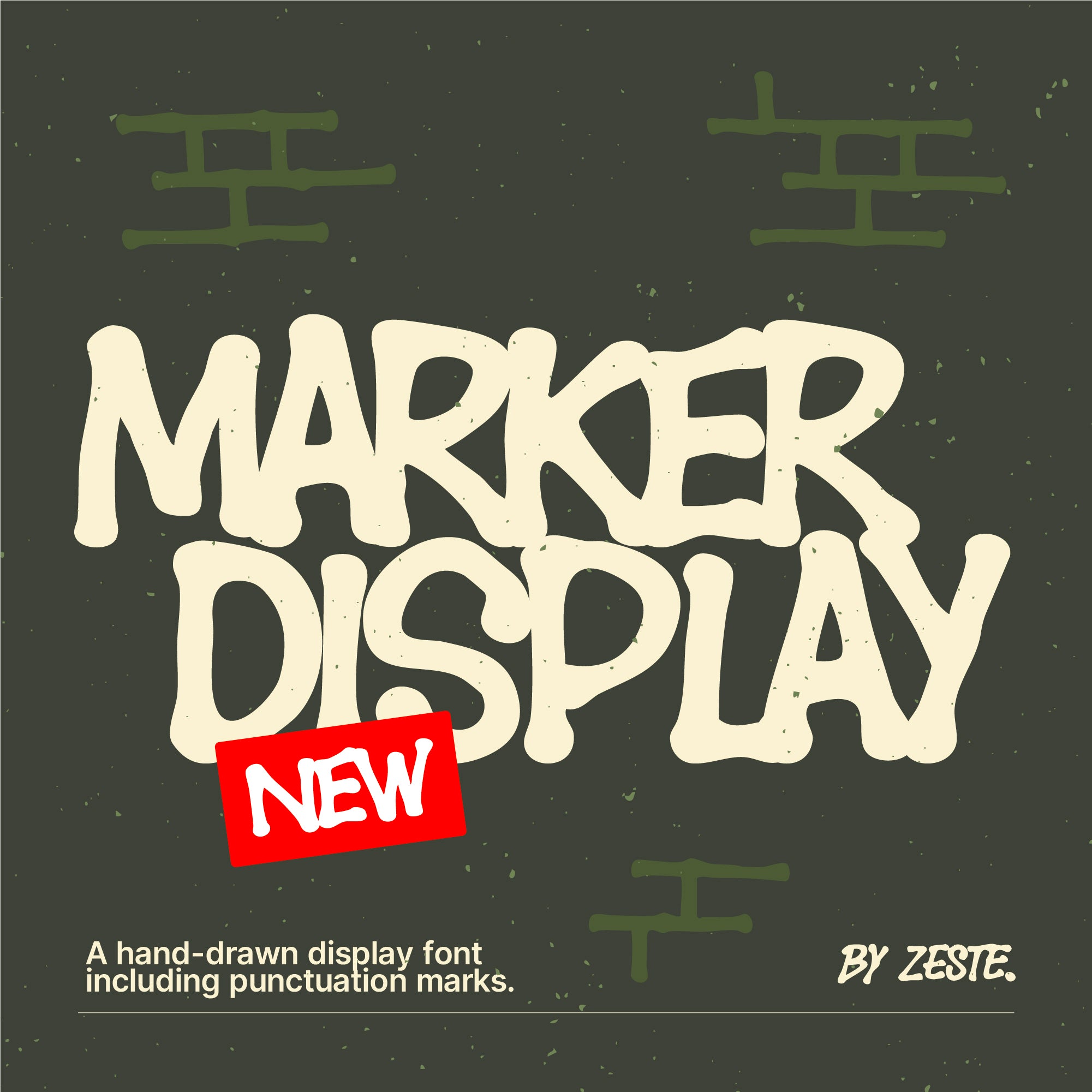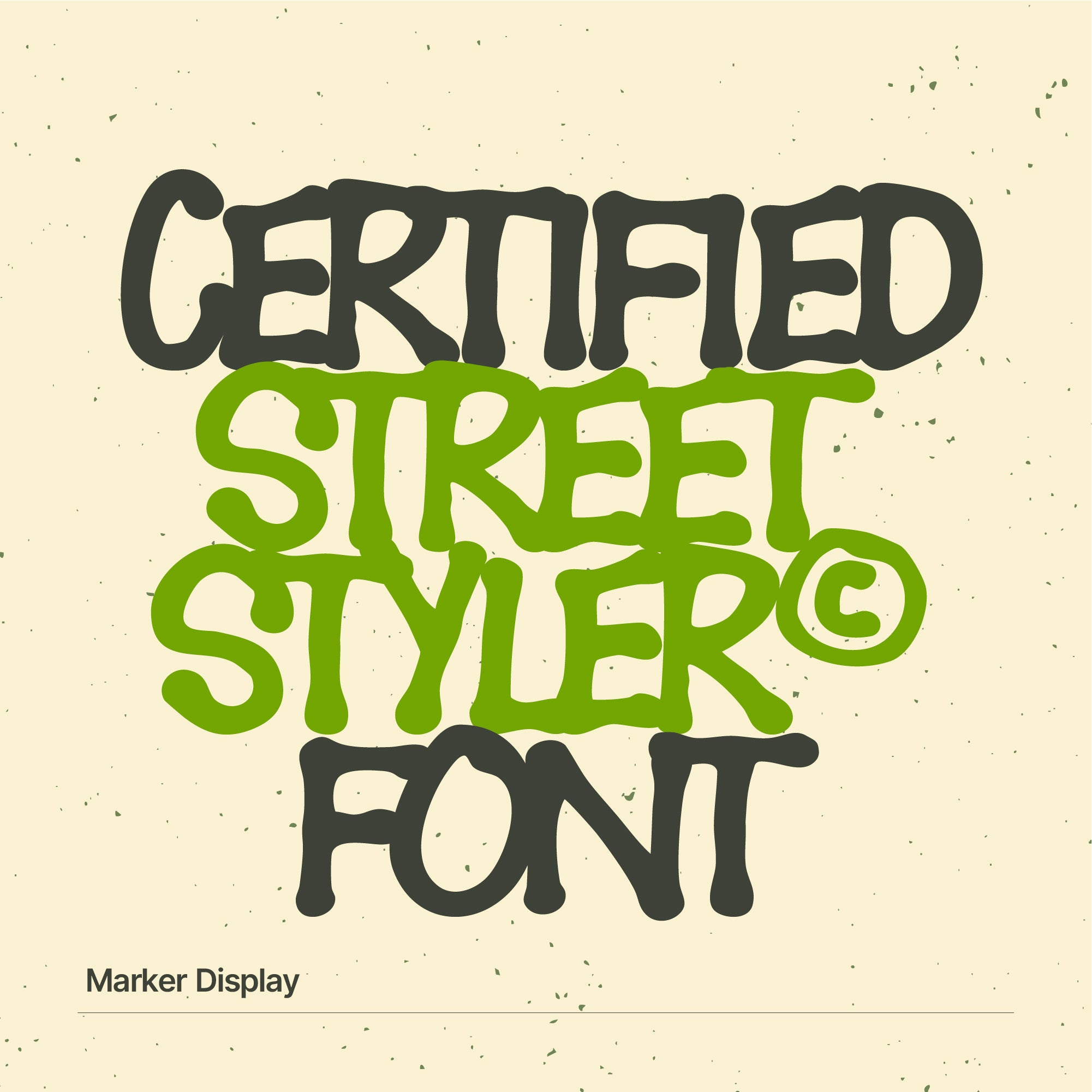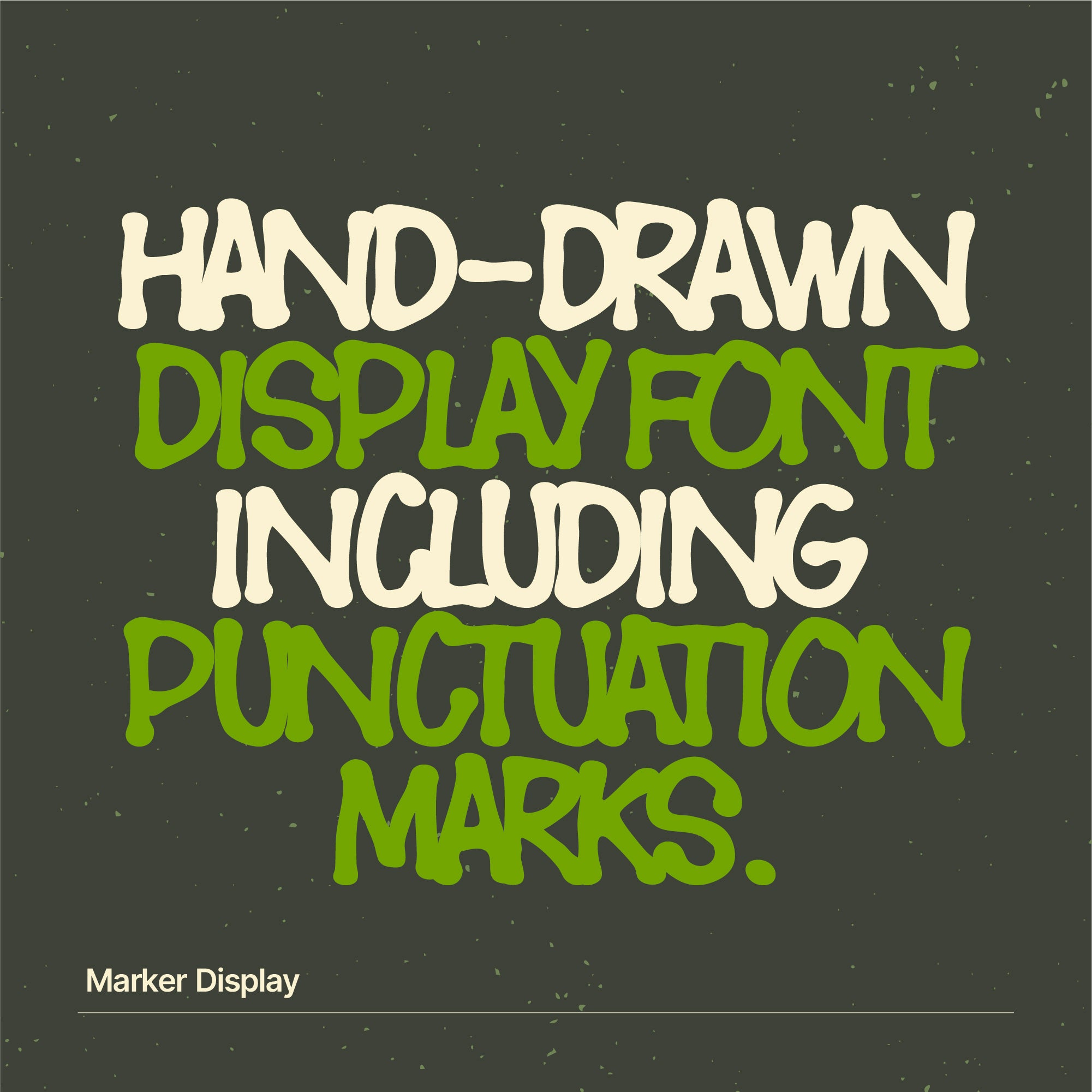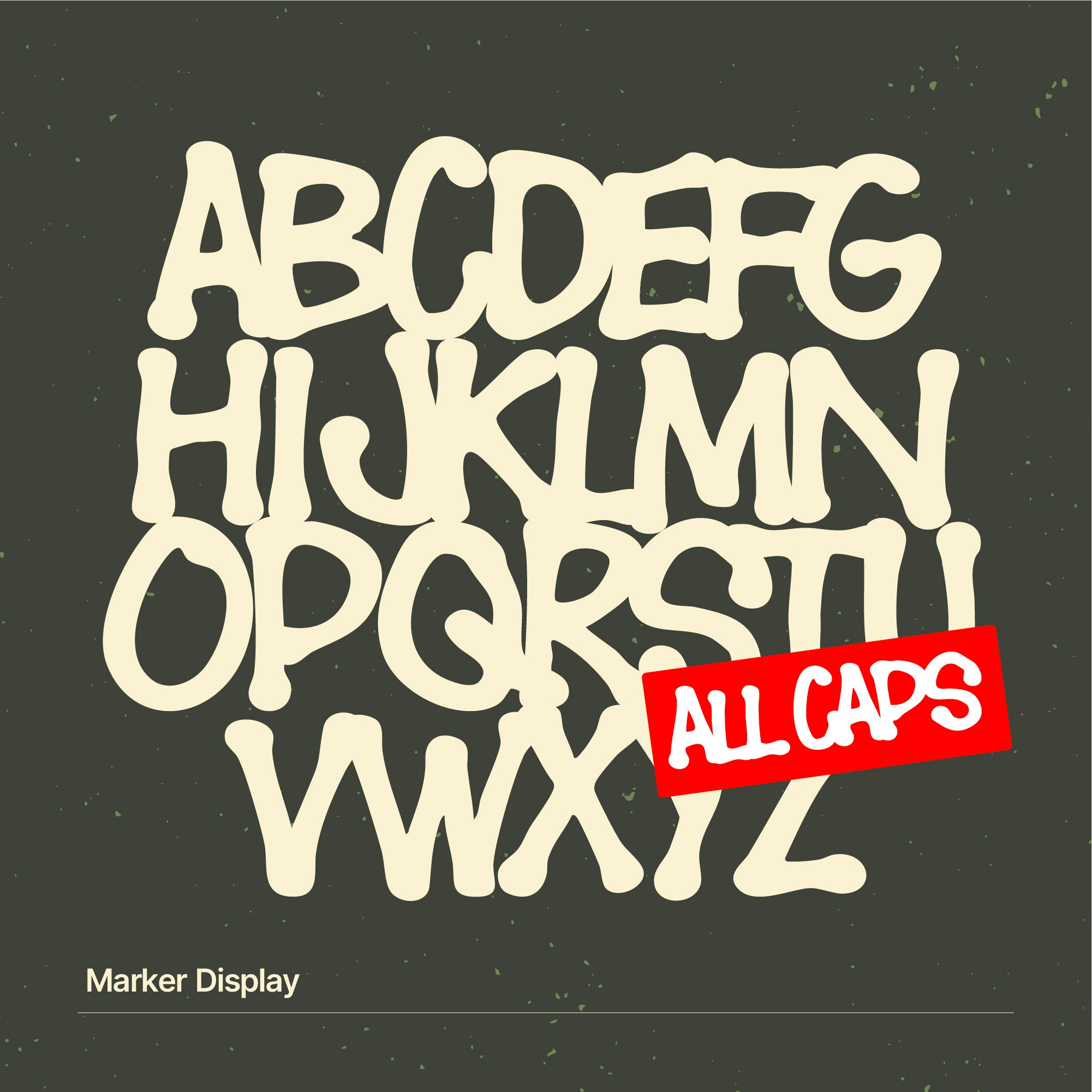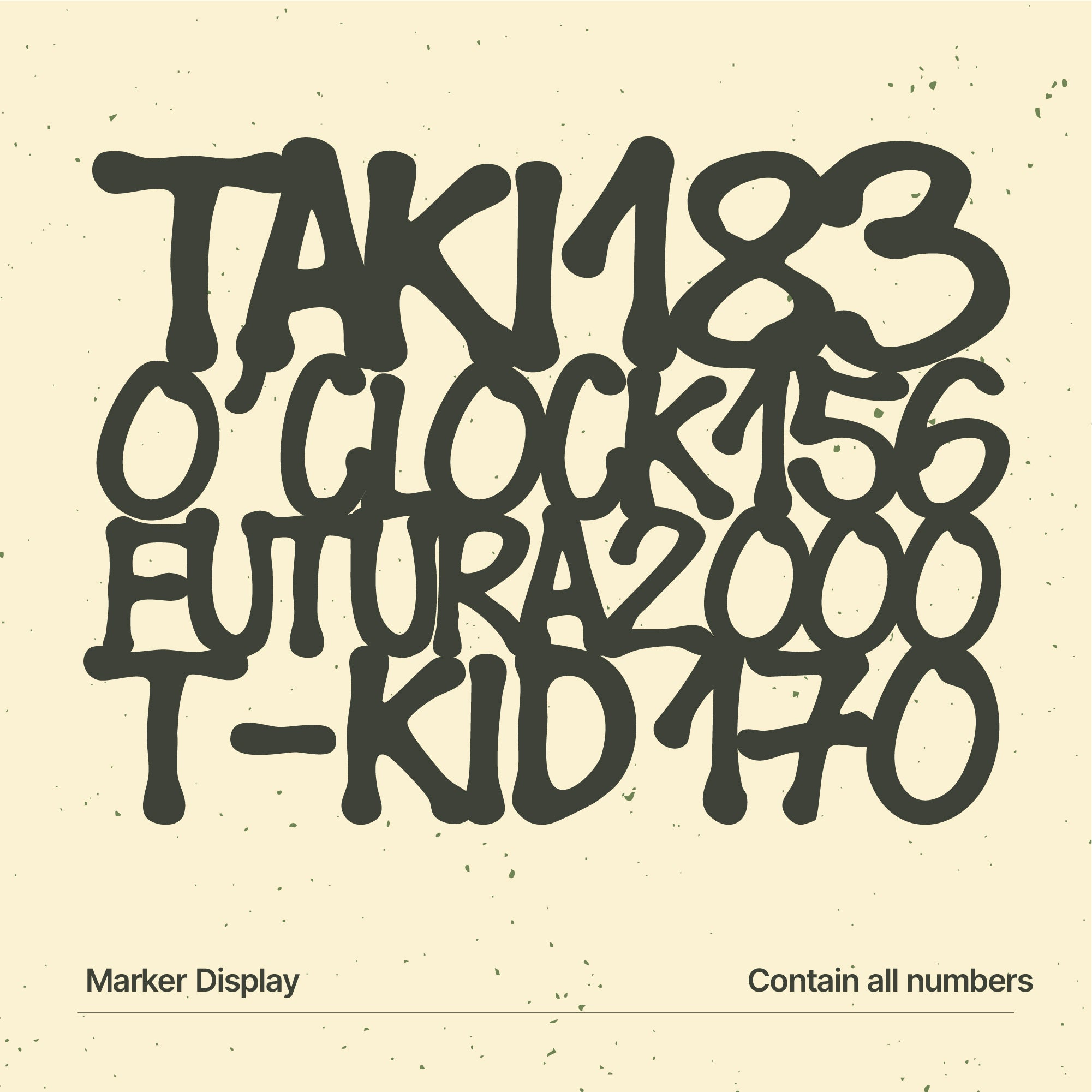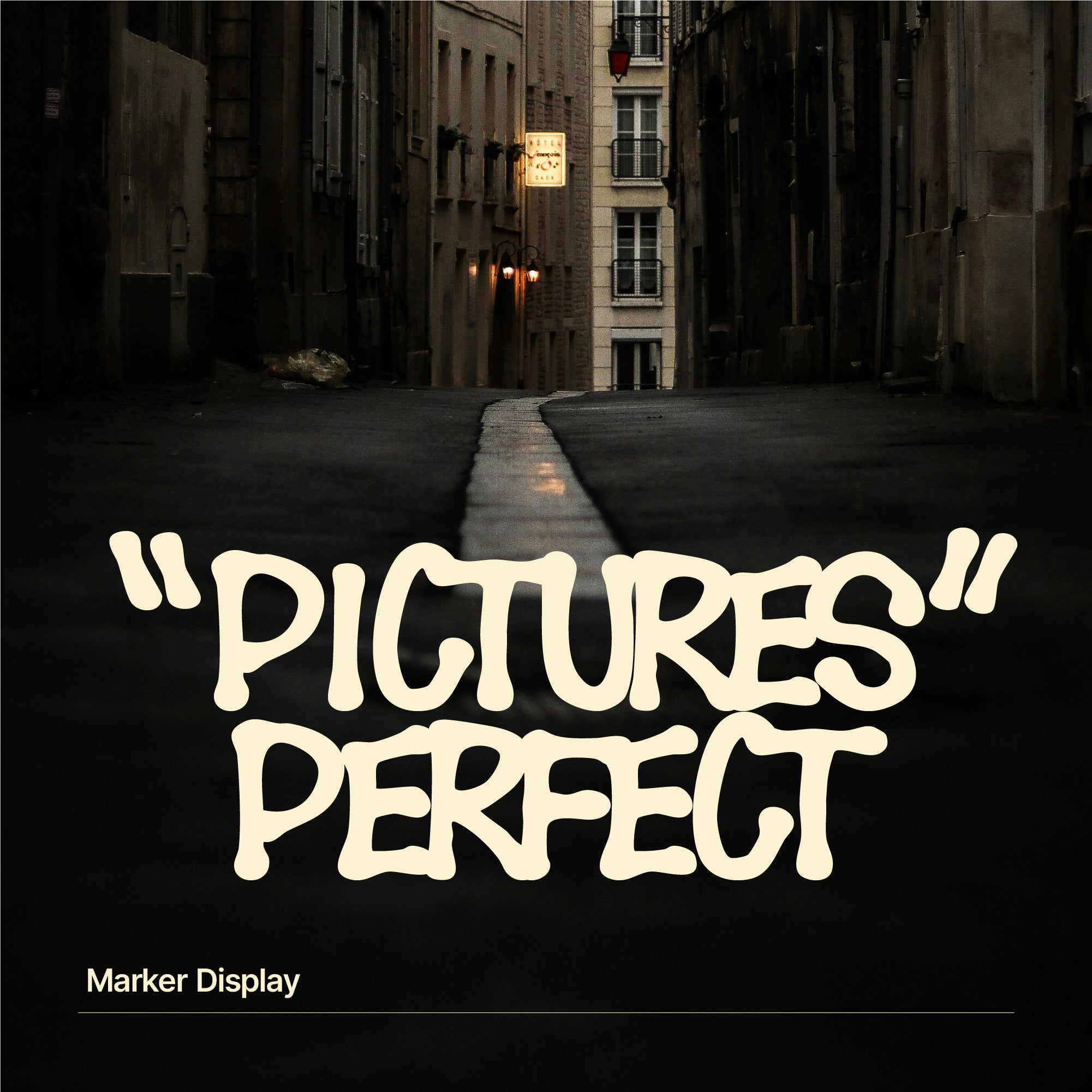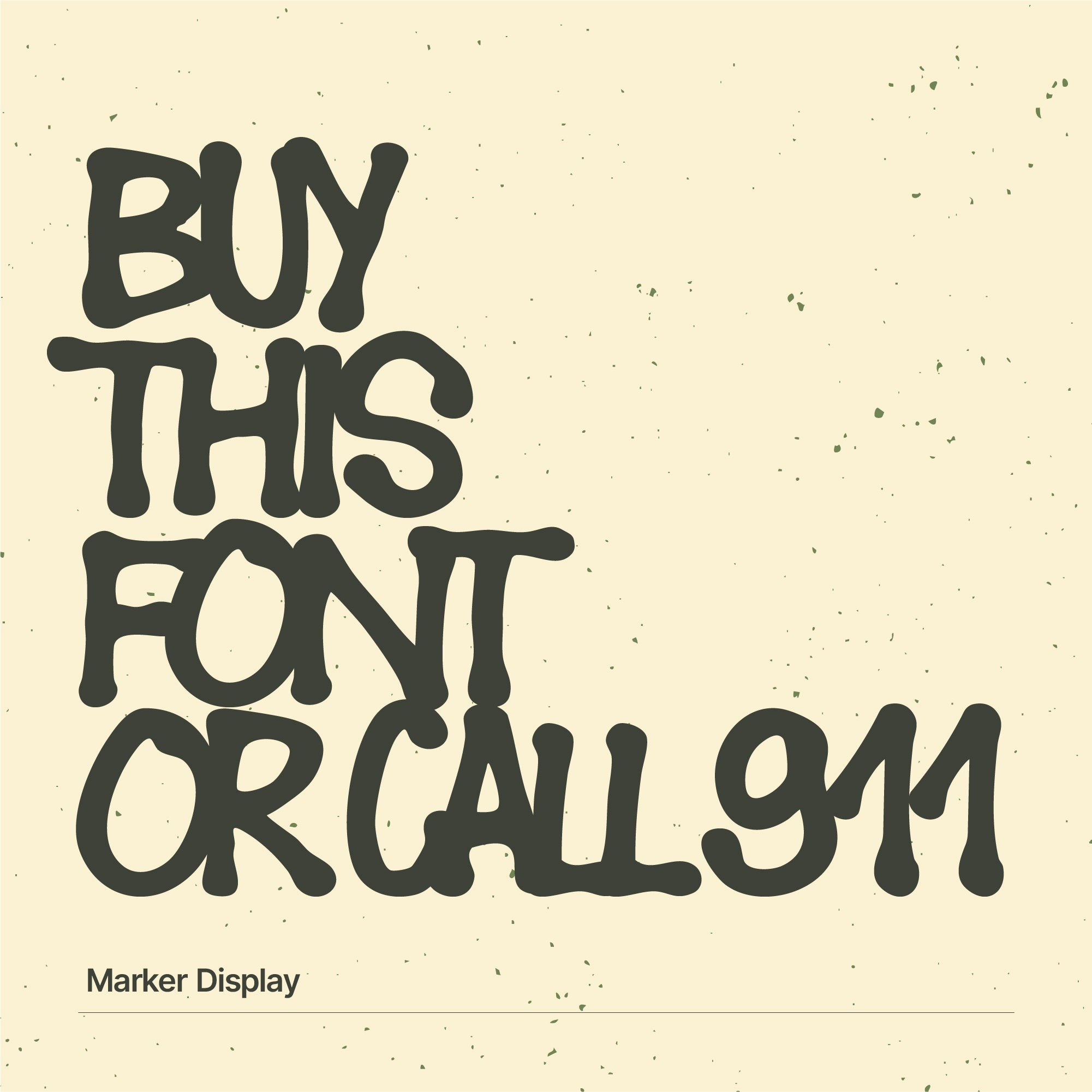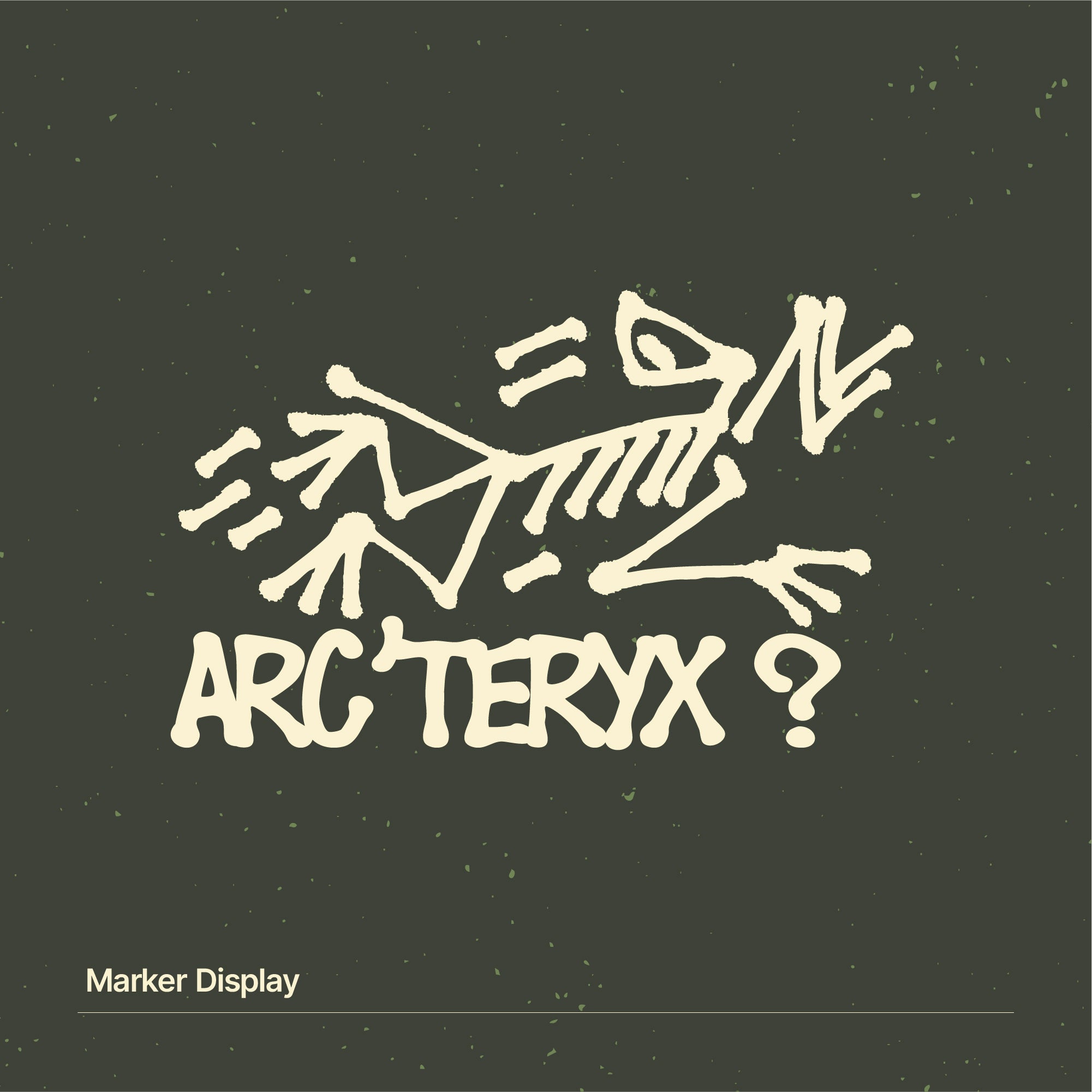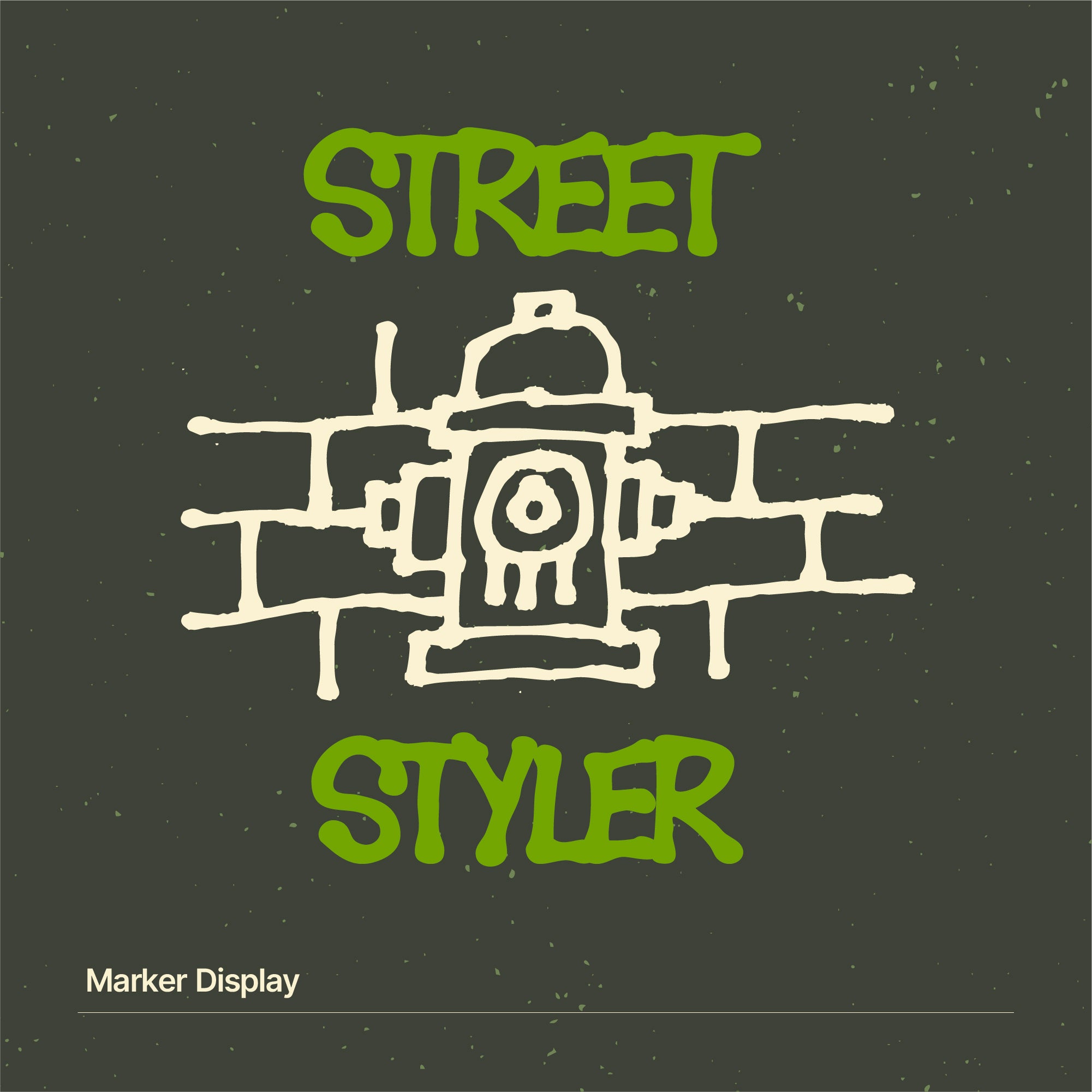
Marker Display - Hand-Drawn Font
Marker Display - All Caps Hand-Drawn Display Font including Numbers & Punctuation marks.
Hand-drawn display font, inspired by bold marker lettering and graffiti. Designed to grab attention instantly, this typeface features thick, rounded strokes, organic curves, and a playful graffiti aesthetic that feels energetic, raw, and authentic.
The Display Marker is an all-caps hand-drawn display font featuring thick, rounded strokes and a graffiti-inspired aesthetic. It includes numbers and punctuation marks, making it suitable for various design projects.